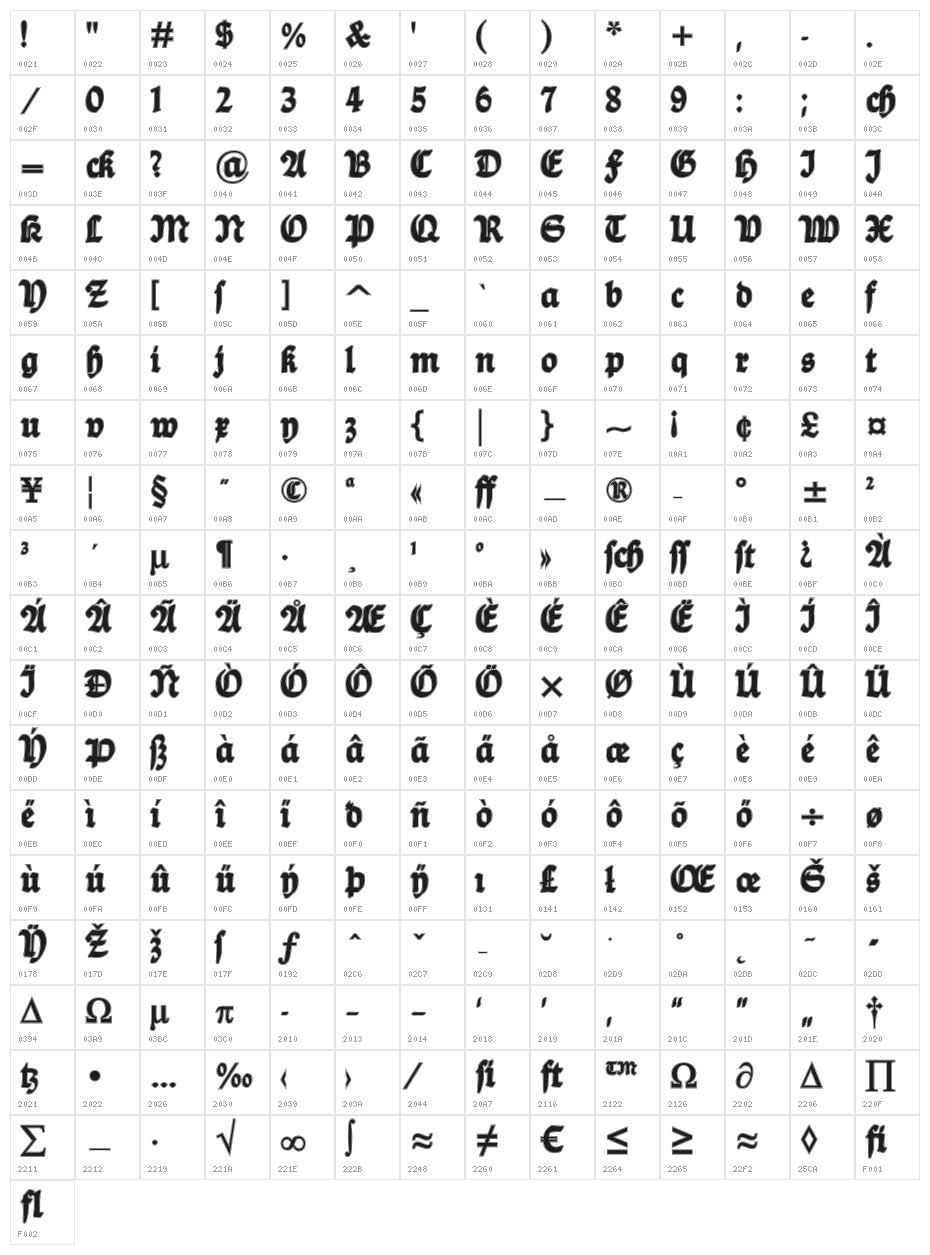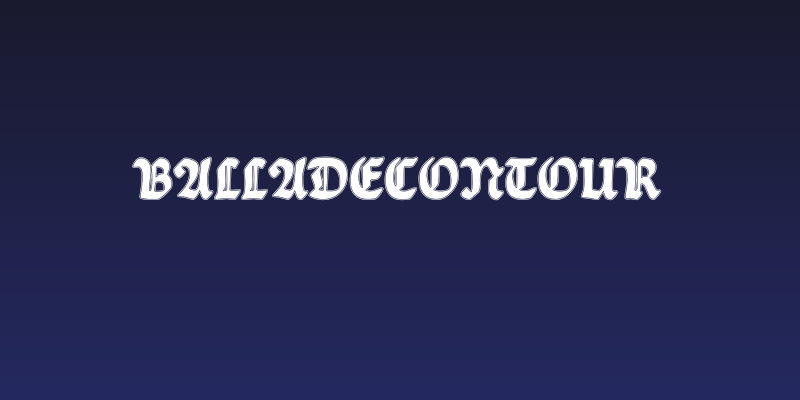
BalladeContour Font
BalladeContour Description
This font features a bold, blackletter style with a distinct contour effect that gives each character a three-dimensional appearance. The uppercase and lowercase letters are designed with sharp, angular lines and a strong presence, reminiscent of traditional Gothic scripts. The numerals and special characters maintain this bold, intricate style, making them stand out with their unique, decorative flair. The overall design is highly stylized, with a focus on dramatic visual impact, suitable for projects that require a touch of historical or medieval aesthetics.
| Proposed Projects | Ideal for use in branding, posters, book covers, or any design that seeks a historical or medieval theme. |